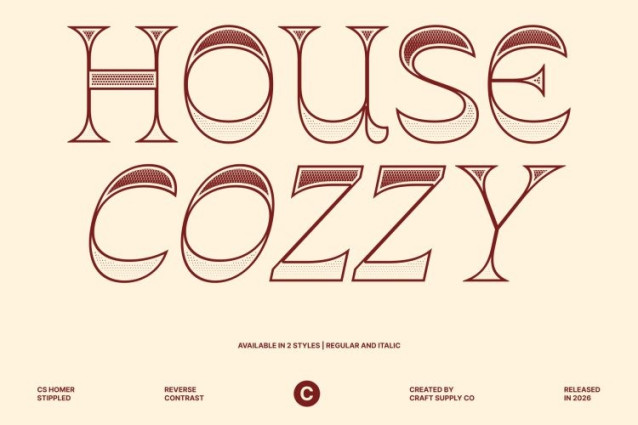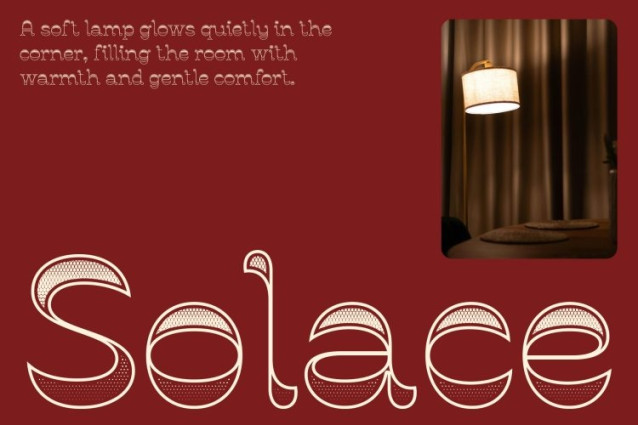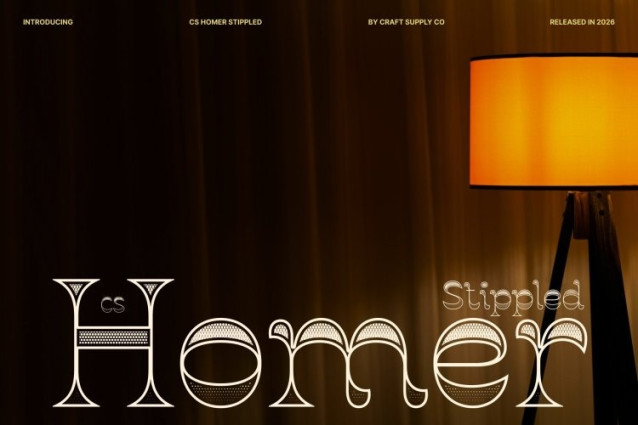
CS Homer Stippled Font
CS Homer Stippled Font – This stands out with its distinctive reverse contrast design, where traditional stroke weight is inverted thin verticals meet thicker horizontals to create a striking and unexpected visual rhythm. This unusual structure evokes vintage typographic traditions while delivering a fresh, contemporary edge.
Classic Elegance Meets Modern Creativity
Blending nostalgic charm with modern expression, the font’s characterful shapes offer a refined yet playful aesthetic. The stippled texture adds depth and personality, giving the letterforms a handcrafted feel that enhances their visual impact while maintaining clarity.
Designed for Eye-Catching Applications
Perfect for posters, branding, packaging, and editorial headlines, this is built to stand out. Its retro-inspired appearance combined with modern versatility makes it ideal for projects that need to feel distinctive, artistic, and memorable.
Retro Charm with Contemporary Appeal
With its expressive personality and unique contrast, this font brings a sense of vintage elegance and creative flair to any design. It’s the perfect choice for visuals that aim to capture attention while balancing classic inspiration with modern style.